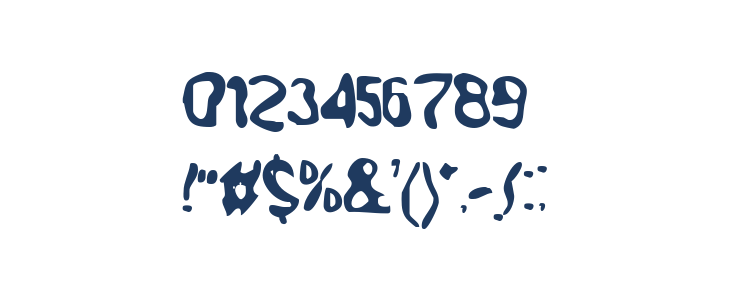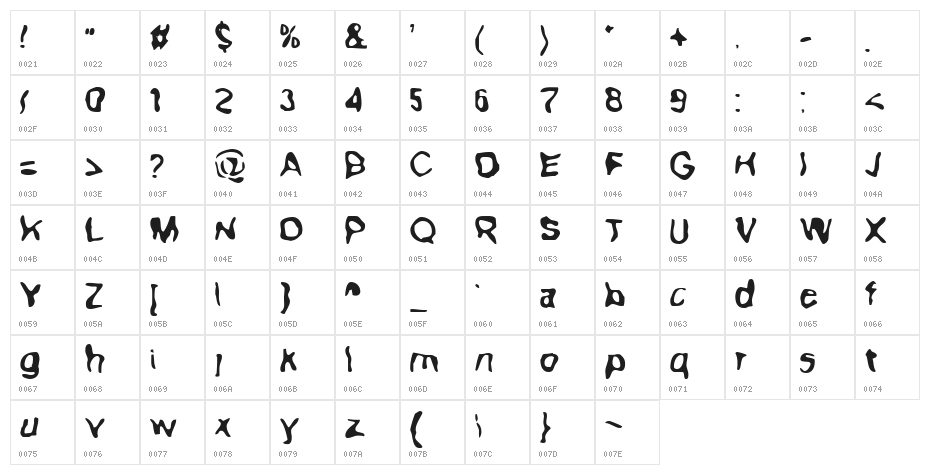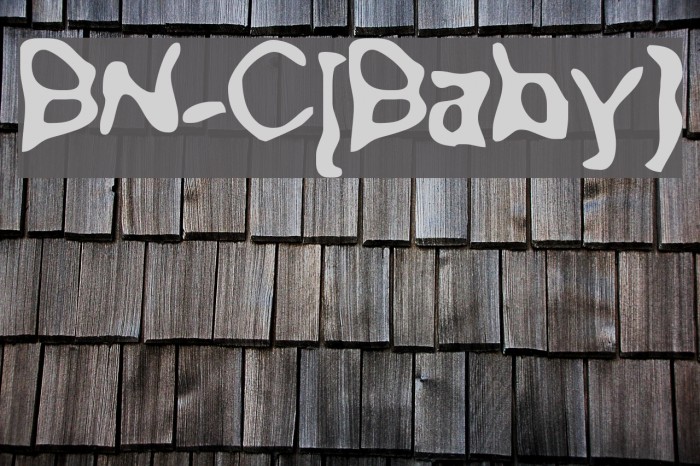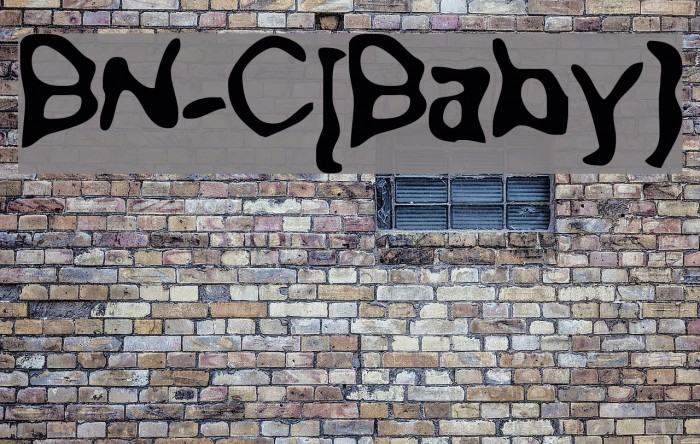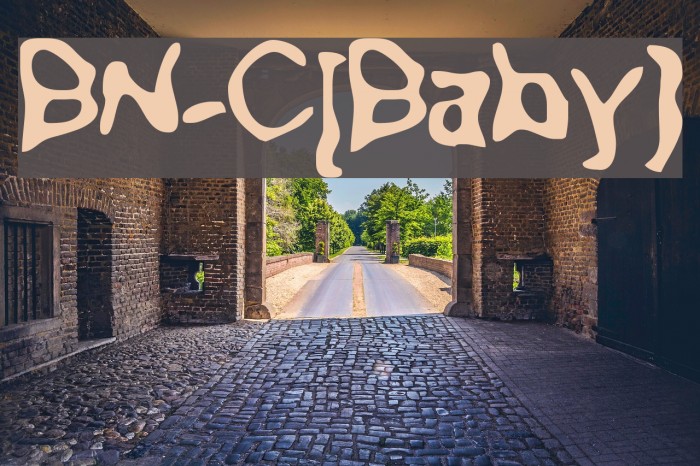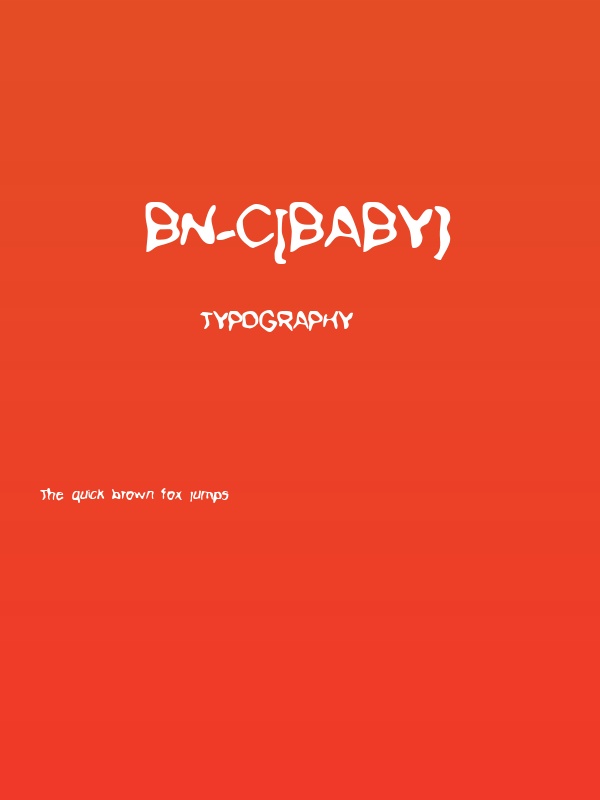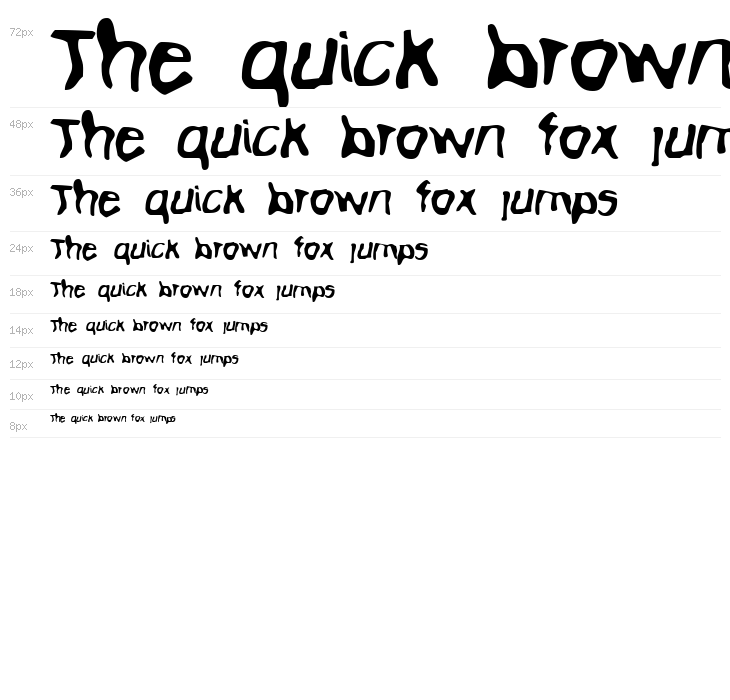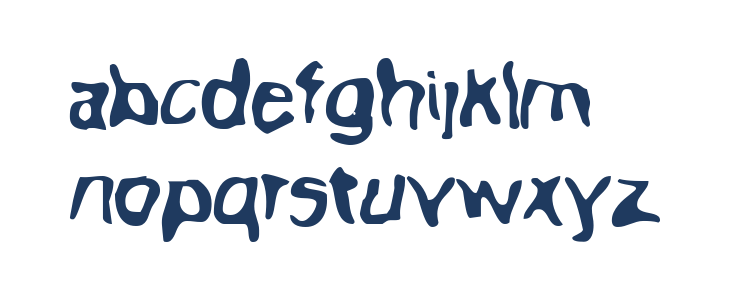
BN-C[Baby] Font
BN-C[Baby] Description
This font features a playful and organic style with irregular, wavy lines that give it a hand-drawn appearance. The characters are bold and have a whimsical, almost cartoon-like quality, making them stand out with their unique shapes. The font maintains a consistent thickness throughout, which adds to its bold and striking presence. Each letter has a distinct personality, with curves and angles that create a sense of movement and energy. The numbers and special characters follow the same lively design, ensuring a cohesive look across all elements.
| Use Case | Headlines, Posters, Creative Projects |
| Proposed Projects | Ideal for children's books, playful branding, posters, and creative projects that require a fun and energetic typeface. |